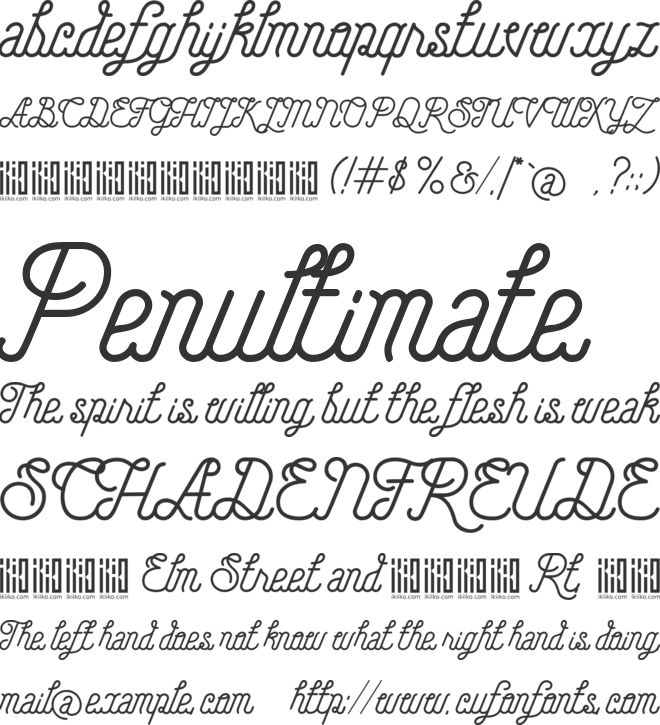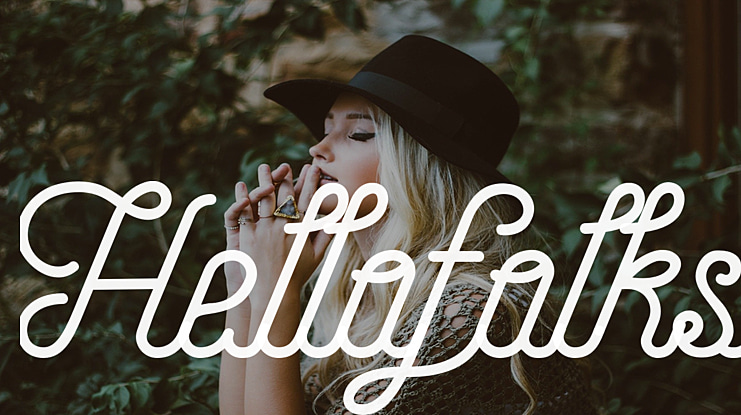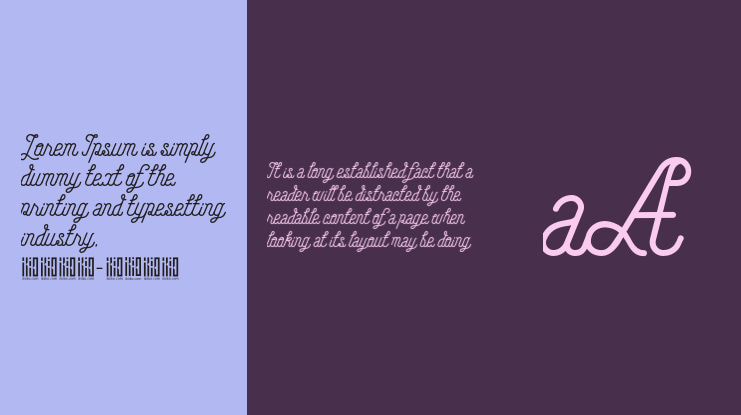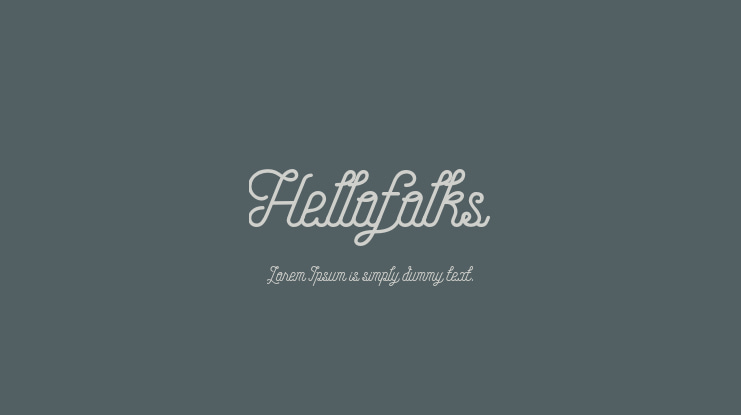
Hellofolks Font
Proudly present Hellofolks - Monoline Typeface, created by ikiiko.
A beauty line decorative typeface that has own style with simplicity. This font retains characters with a set of consistent characters. Perfect for an elegant & luxury logo, travel & adventure blog, fashion brand, food & beverages logo, magazine layout, clothes, lettering, quotes, and so much more.